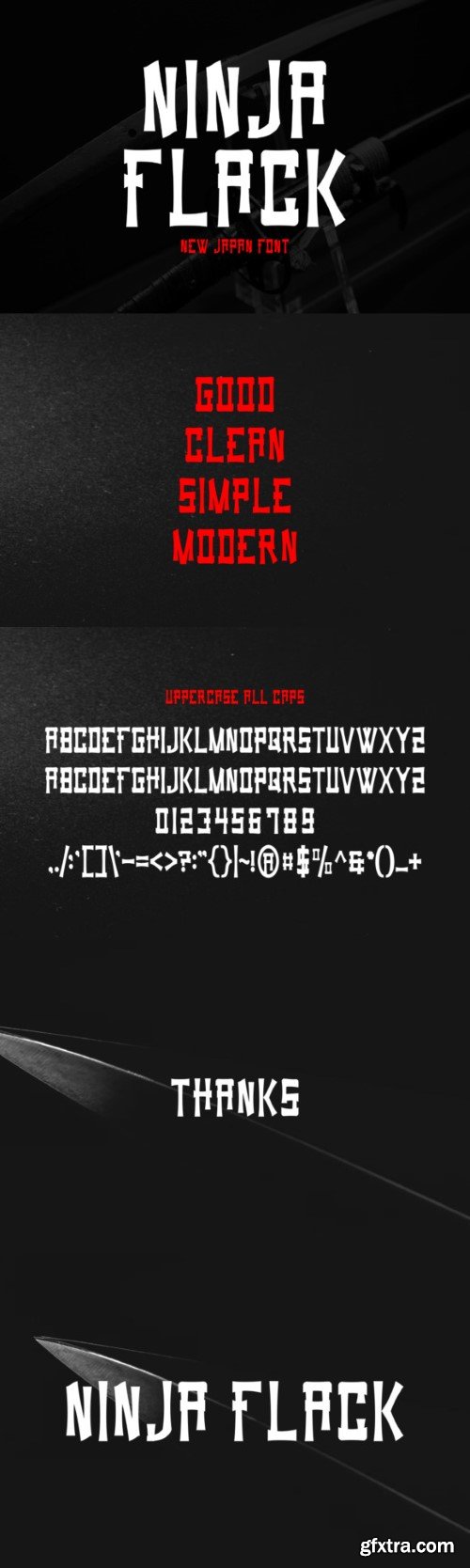
ninja flak font
Introducing our new product **Ninja Flack Font** – Modern Font
**Ninja Flack Font** – Modern Font is a bold and authentic display font. The font is suitable for any branding project like logo, t-shirt printing, esports, and many more. outstanding in a wide range of contexts.